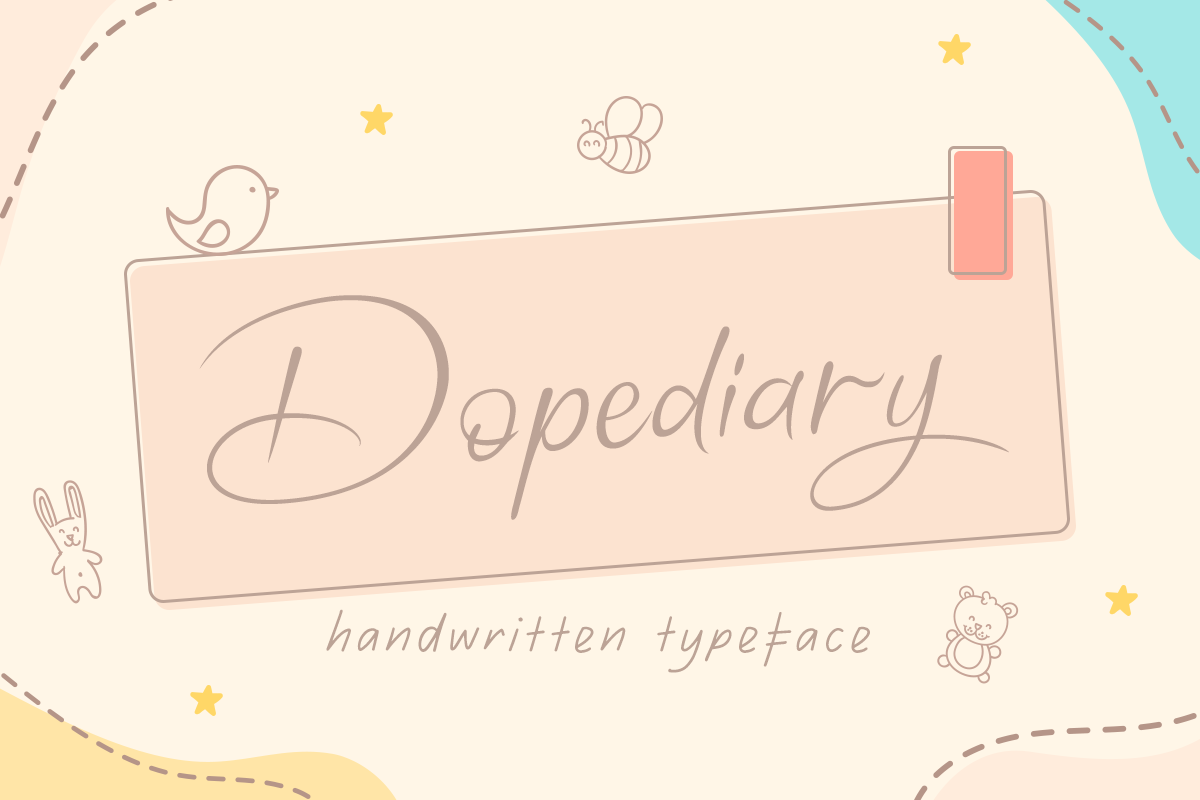
Dopediary Handwritten Typeface
Introducing, Dopediary handwritten typeface. this typeface is contain Uppercase, Lowercase, Symbol, and support Multilingual. This font is perfect for quotes, branding, packaging, invitation, and playful design. Happy Creating!